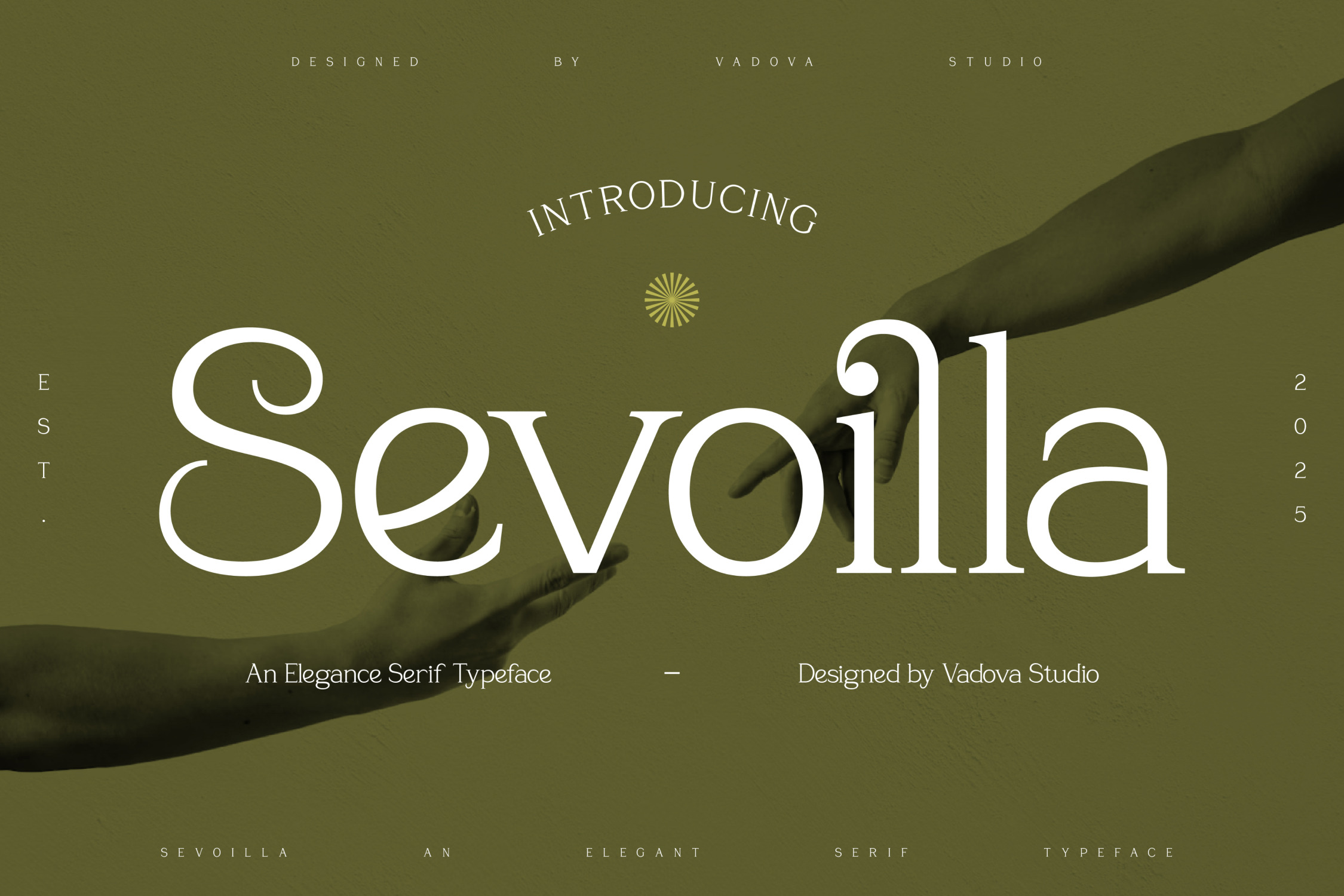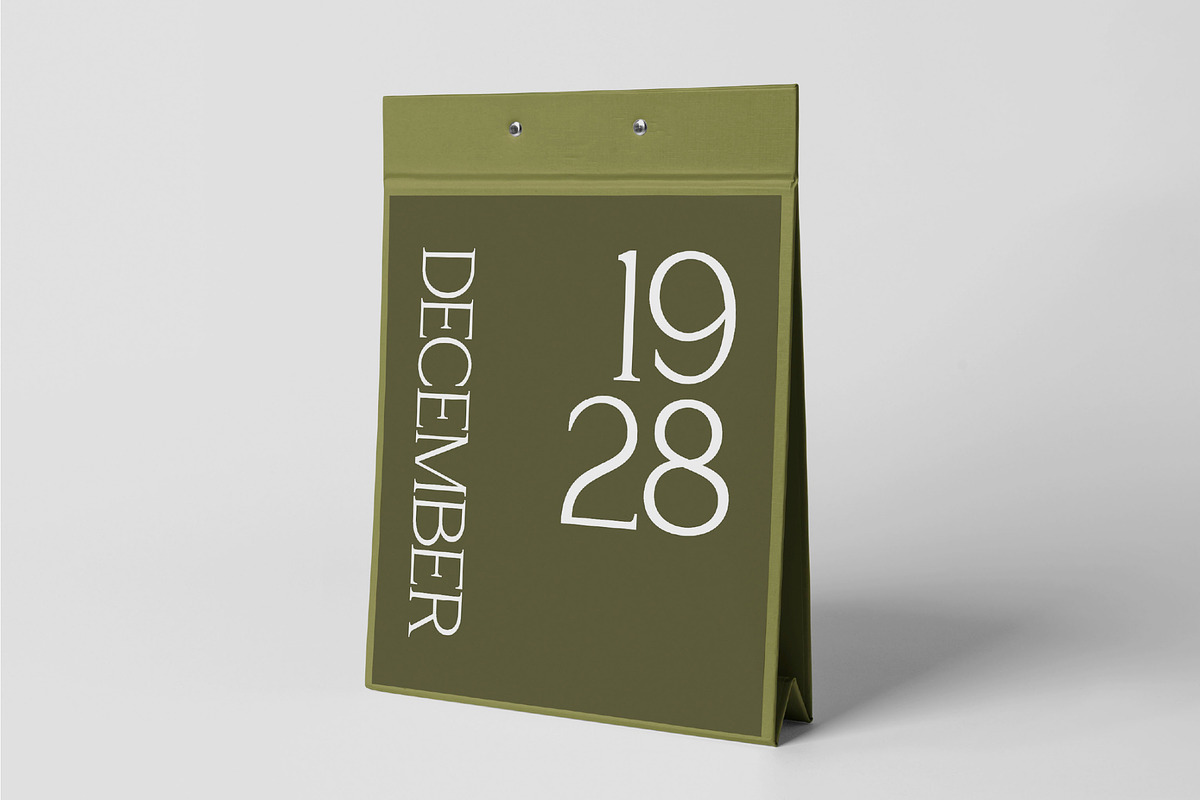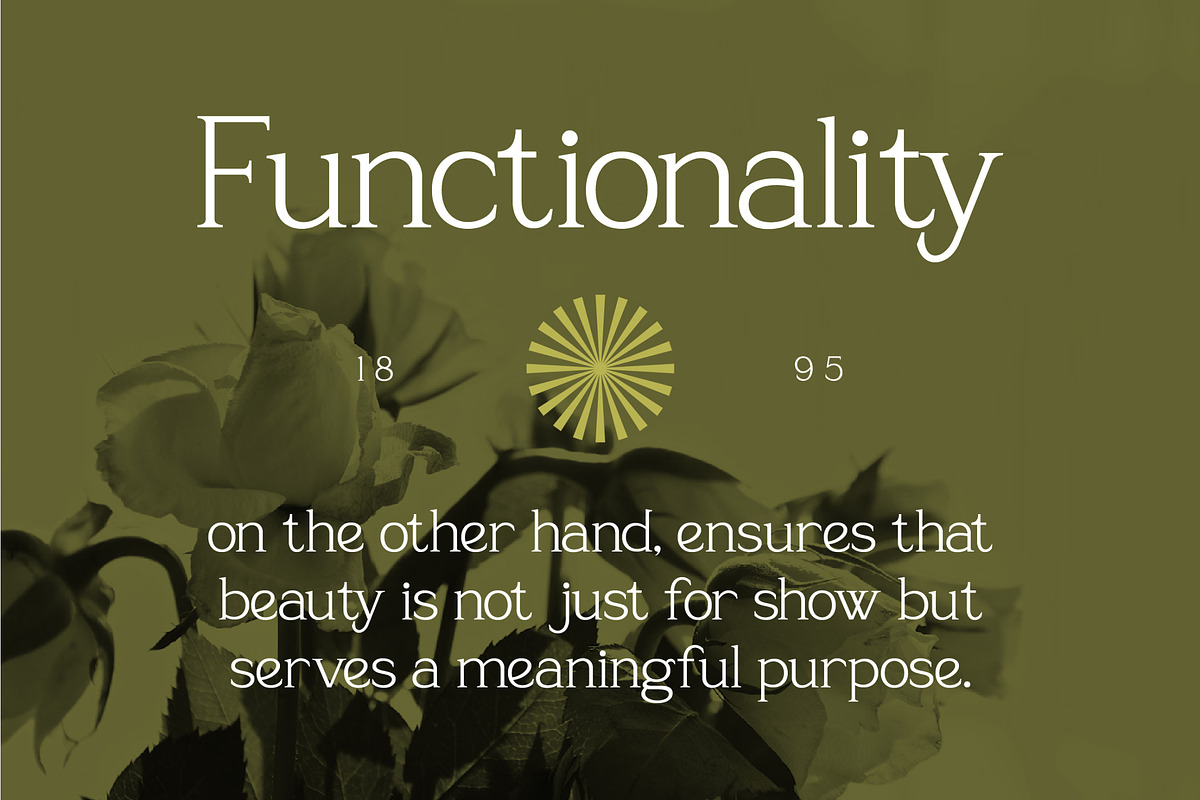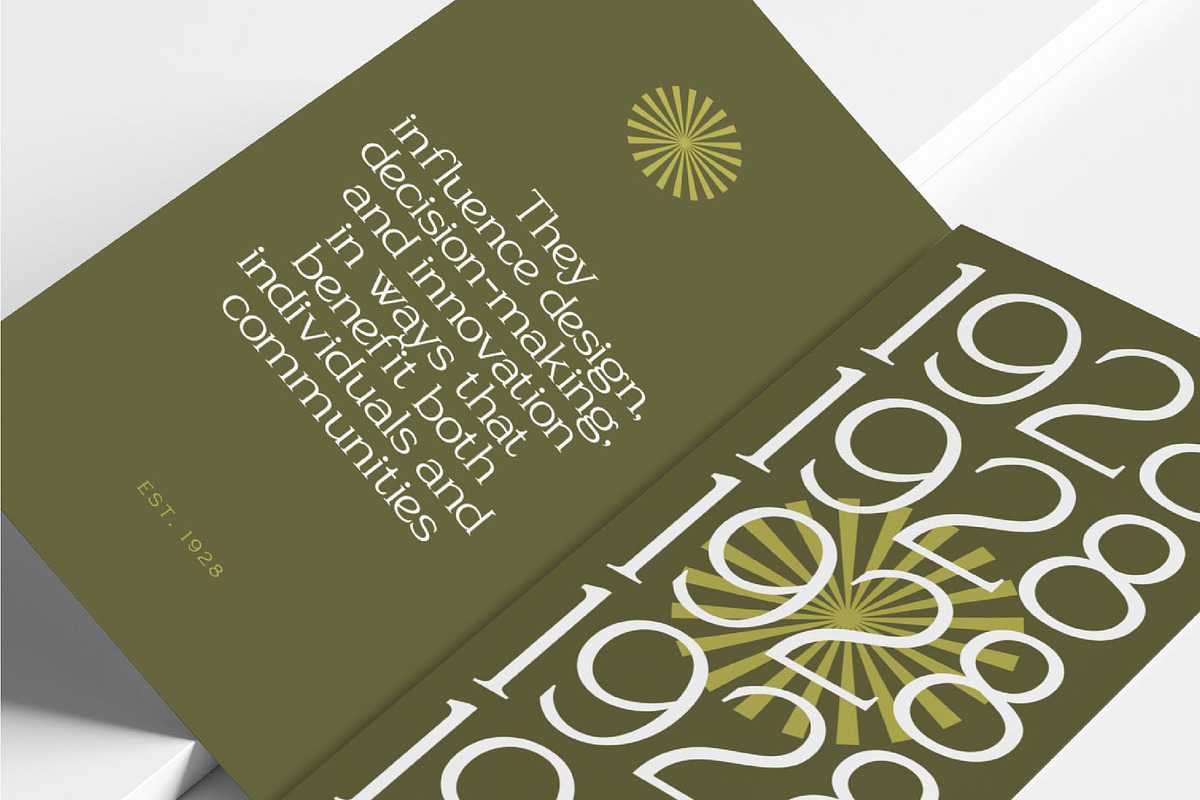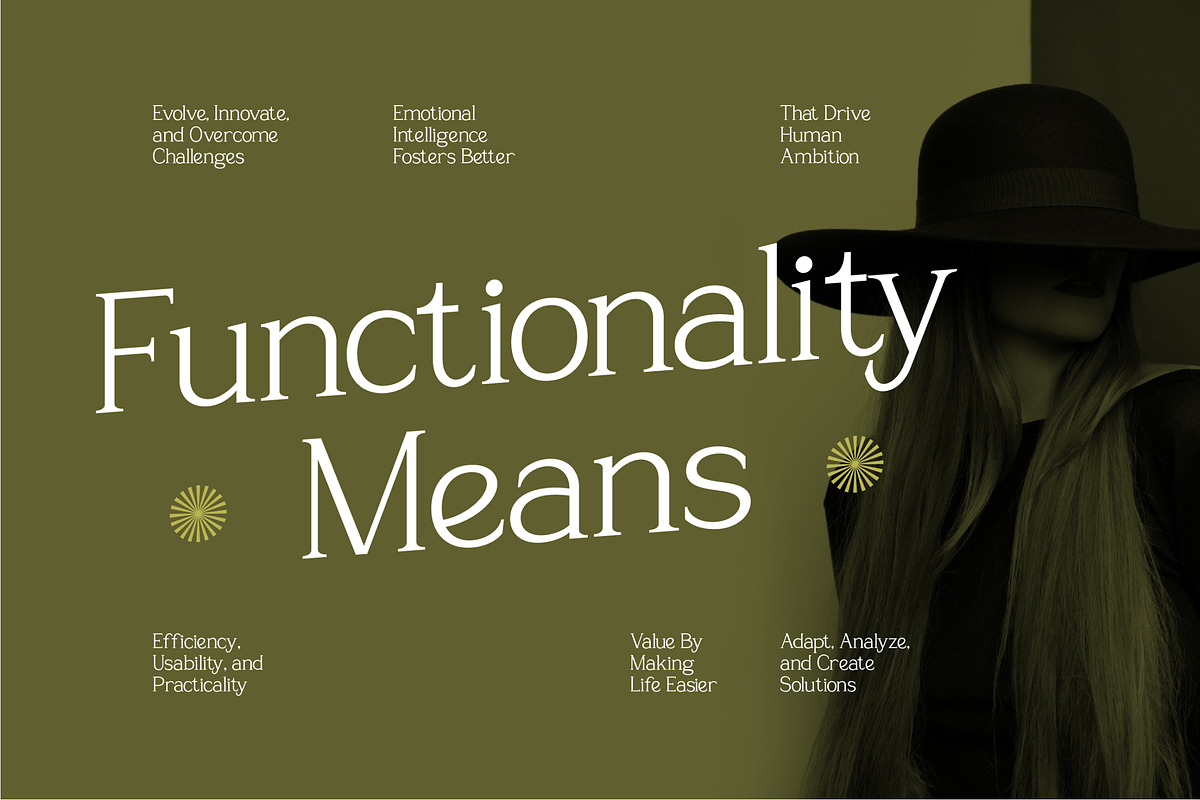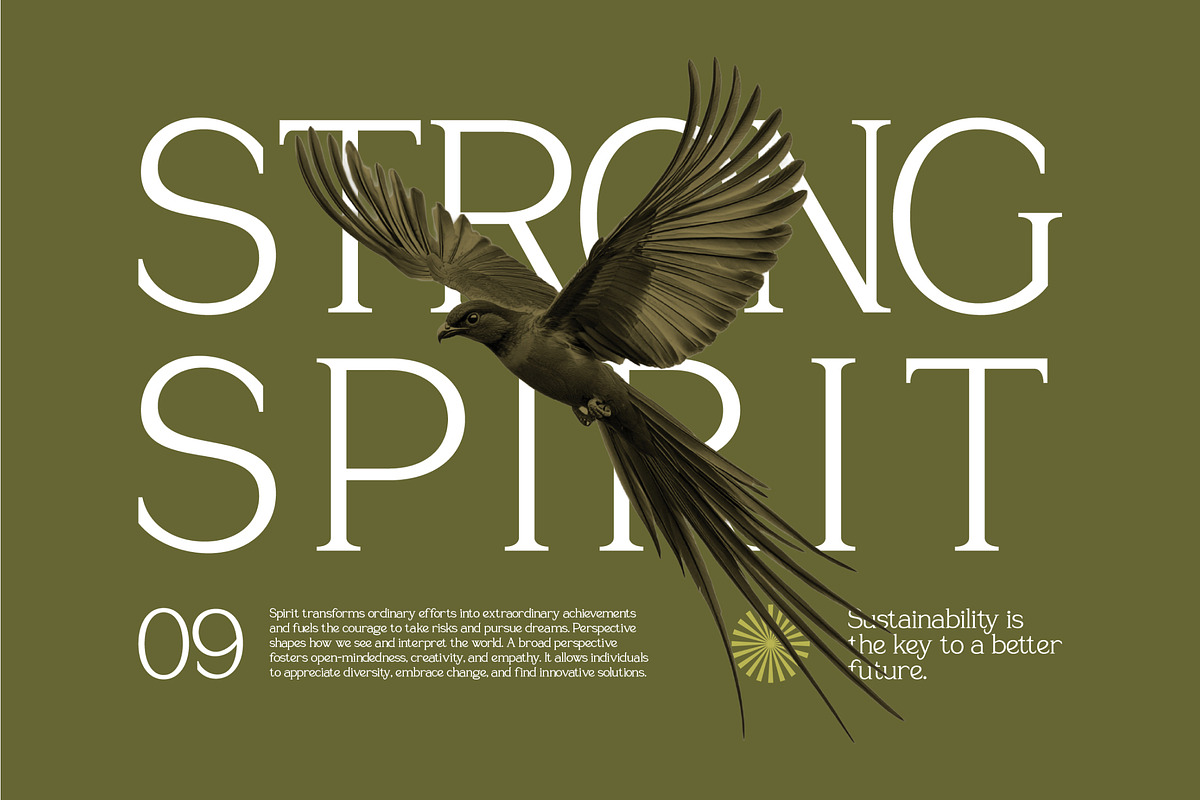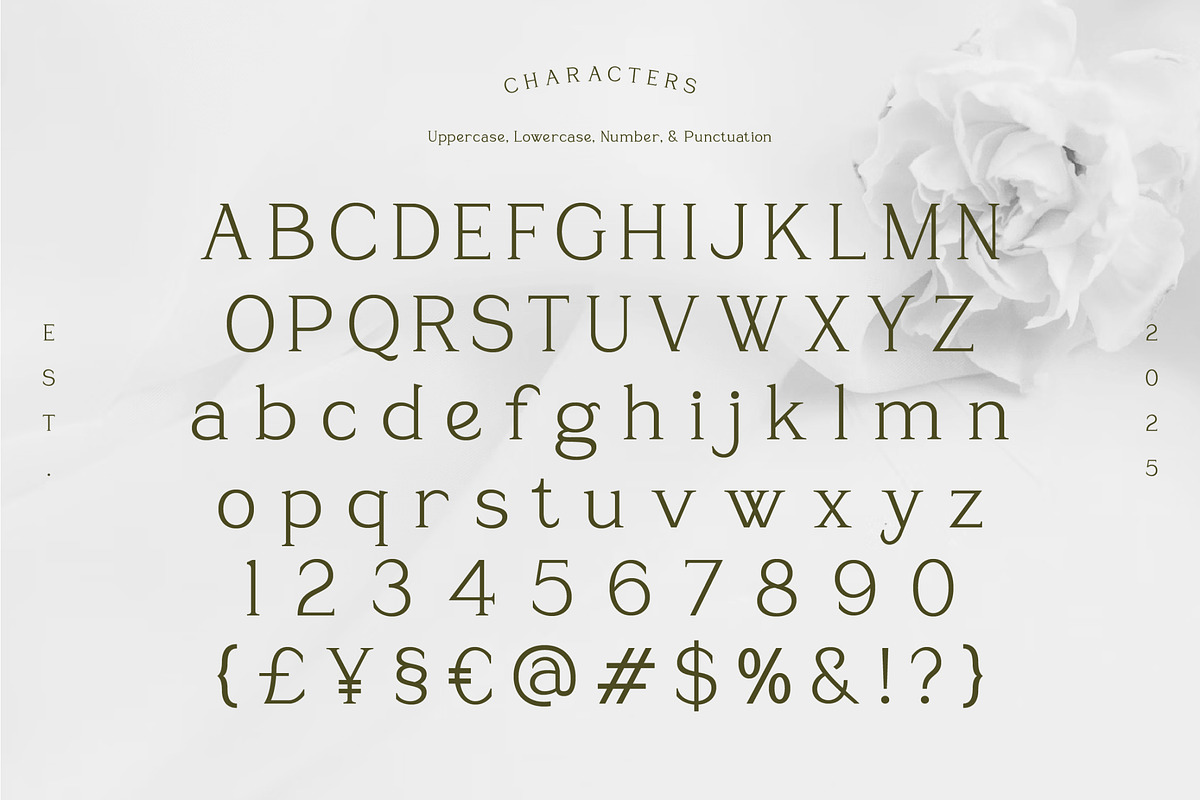
Sevoilla – Elegant Serif Typeface
Sevoilla captures the essence of timeless sophistication, blending classic serif refinement with modern minimal sensibility. Designed for those who appreciate elegant letterforms, this typeface delivers both confidence and grace — a balance between historical beauty and contemporary clarity. Each curve and stroke was carefully shaped to reflect craftsmanship, editorial precision, and effortless luxury, making it ideal for designers aiming to evoke emotion and distinction through typography.
The design of Sevoilla thrives in luxury branding, art magazines, boutique packaging, and personal portfolios. Its structure combines flared serifs, balanced contrast, and smooth terminals, resulting in a design that feels poised, readable, and expressive. Sevoilla naturally suits the needs of editorial layouts, high-end brand identity systems, digital campaigns, and fashion or lifestyle projects that require both aesthetic warmth and design confidence.
Every letter in Sevoilla carries a sense of poise — from the elegant tail of its “a” to the sculpted grace of its serifs — making it perfect for those who want a serif with presence and personality. Its tone is both modern and classical, allowing it to bridge traditional publishing style with modern design trends.
Created for those who design with emotion and purpose. Sevoilla brings visual harmony and quiet authority to every layout it graces. It doesn’t shout — it whispers luxury. Whether you’re designing an upscale brand identity, an editorial cover, or refined digital content, Sevoilla transforms typography into a mark of excellence.
Elegant modern serif with refined contrast and classical proportion
Balanced rhythm for editorial and brand compositions
Sculpted terminals and decorative details for luxurious visual texture
Perfect for high-end logos, packaging, and magazine titles
Bonus Functional Highlights:
Multi-language support with smooth kerning
Optimized for both print and digital readability
Distinct personality without sacrificing legibility
Ideal pairing with minimalist sans-serif companions
Works beautifully in large headlines and logotypes
Relevance and Use Cases is perfect for fashion branding, luxury packaging, boutique editorials, personal portfolios, elegant invitations, and creative studio identities. It fits beautifully in both traditional print media and contemporary digital environments.
Let Sevoilla elevate your typography — an elegant serif typeface crafted for modern designers who value sophistication, balance, and timeless grace.